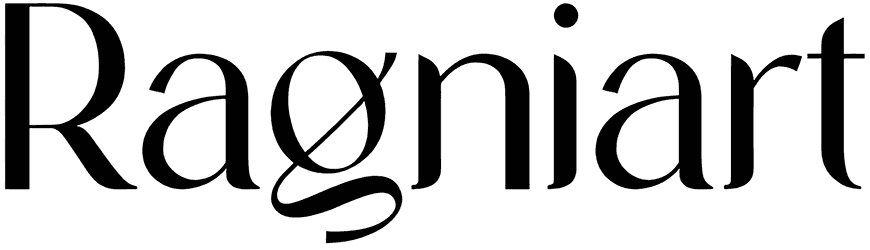
Ragniart Font
Every day, a new business enters the market, so it’s wise to have plenty of business fonts in the bank. After all, they all need a proper logo design before anything can happen, and that’s also why you, as a professional designer, need Ragniart more than you think.
This modern font provides you with all the stylishness you wish to add to your business cards. So it should be useful for brands of watches, sunglasses, earrings, beauty products, and others.